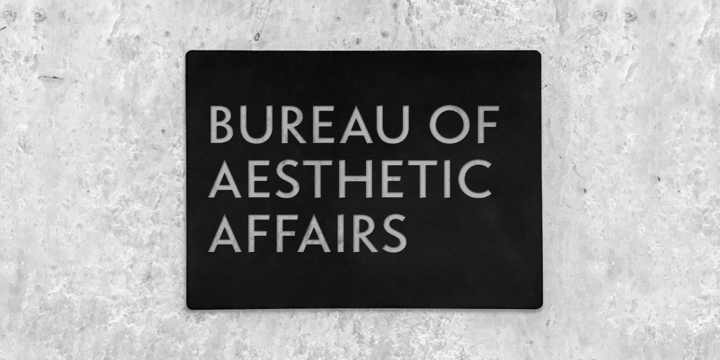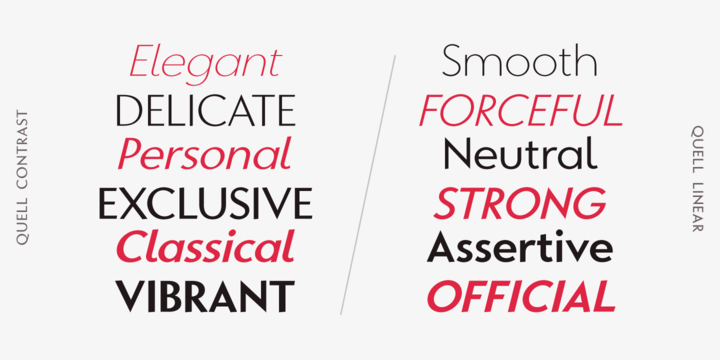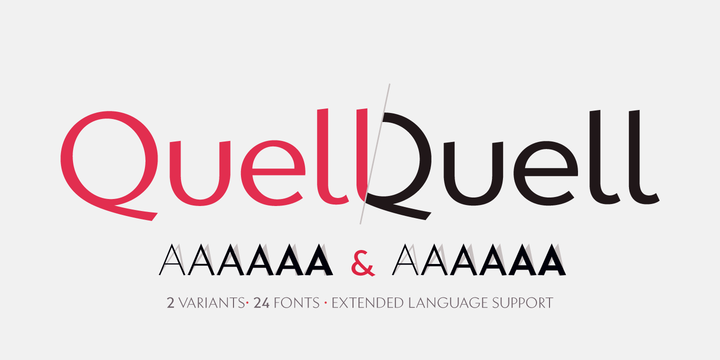
Quell is a novel attempt to bridge the gap between geometrically constructed shapes on the one hand, and modulated strokes and subtle calligraphic influence on the other hand.
The visual tension in Quell stems from conflict between two tendencies: The perfectly round shapes are geometrically constructed, yet the contrast of stroke widths and oblique line terminations suggest calligraphic roots.
How this dualism affects typographic impression is up to designers and typographers using Quell as variable font the seamless transition between modulated contrast and linear appearance offers unique typographic possibilities.
Linear appearance gives the text a solid and compelling voice, whereas the modulated styles convey elegance, vibrance and a delicate tone.
More Quell is suited to display setting, headlines, way finding and identity.
The combination of linear and contrast variants provides typographic range to convey different stance while rooted in the same visual heritage.
In short paragraph typesetting the fonts have a modern look and characterful tone, but should not be overused for longer texts.